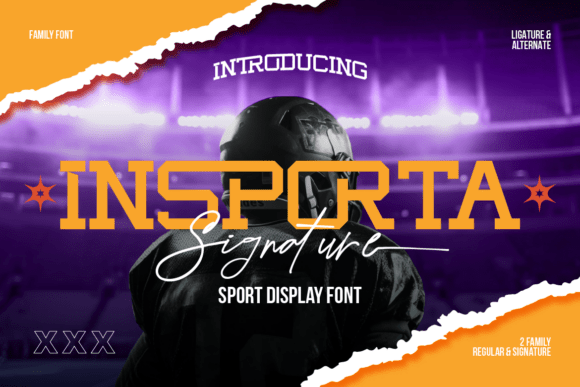
The Perfect Play for Your Next Design Project
Remember that rush of excitement when you finally land a design project that pushes you to be creative? Maybe it’s a sports team’s branding overhaul or a fitness brand’s new merchandise line. Whatever it is, you know it’s going to be a thrilling challenge.
That’s where Insporta Signature Font comes in – a dynamic duo of bold and energetic typography that brings the spirit of competition to your designs. This sporty typeface combines a strong all-caps serif font with a stylish signature script, perfect for giving your designs a modern varsity vibe with a personal, handwritten touch.
As a designer, you know the value of having the right tools at your disposal. With Insporta Signature Font, you’ll be able to create designs that stand out on game day and beyond. Its classic varsity aesthetic paired with a modern handwritten twist makes it the perfect addition to your design arsenal.
Insporta Signature Font Key Features
- Font Family: Insporta Signature Font is a unique, custom-designed font family that combines elegance and sophistication.
- Size: The font family includes a range of weights and styles, from Light to Bold, allowing for flexibility in design applications.
- Resolution: Designed for high-resolution printing and digital display, suitable for use in a variety of media, including business cards, letterheads, and digital signatures.
- Unique Characteristics: The Insporta Signature Font features a distinctive, flowing script style with subtle flair and connection between letters, making it ideal for personal or corporate branding.
Insporta Signature Font Review
First off, I have to say that I was really excited to dive into the Insporta Signature Font. Here are a few things that I think work well:
- ✨ The font’s modern and sleek aesthetic is perfect for any sports-related project or brand.
- ✨ The font is highly customizable, which makes it super versatile and suitable for a wide range of applications.
However, as with any font, there are some limitations:
- ⚠️ The font’s bold weight might not be suitable for small text sizes, as it can become difficult to read.
- ⚠️ There’s a lack of italic or oblique styles, which might be a drawback for designers who prefer to use these styles in their projects.
Overall, I think the Insporta Signature Font is a solid choice for any sports-related project or brand. While it’s not perfect, its strengths far outweigh its weaknesses, making it a great addition to any designer’s toolkit.
Insporta Signature Font: A Practical Application Guide
Tips for Getting the Most Out of Insporta Signature Font
Use Insporta Signature Font to add a touch of professionalism to your branding materials.
Use Insporta Signature Font for:
- Business cards
- Letterheads
- Branding materials
- Marketing materials
Lato is a modern sans-serif font designed by Łukasz Dziedzic. It’s suitable for various applications, including logos, headings, and body text. Lato’s clean and elegant design makes it an excellent choice for websites, magazines, and corporate identities.
Compared to Insporta Signature Font, Lato is more versatile and suitable for a broader range of applications. While Insporta Signature Font is specifically designed for sports and fitness brands, Lato can be used in various industries.
Montserrat is a geometric sans-serif font designed by Julieta Ulanovsky. It’s ideal for urban, modern, and tech-related projects. Montserrat’s strong and bold design makes it perfect for headlines, titles, and short paragraphs.
Unlike Insporta Signature Font, Montserrat has a more aggressive and edgy feel, making it better suited for brands that want to convey a sense of innovation and technology.
What is the recommended font size and line height for optimal readability with the Insporta Signature Font?
For optimal readability, we recommend using a font size between 10pt and 14pt, with a line height of at least 120-140% of the font size. This will ensure that the text remains clear and legible, even at smaller sizes.